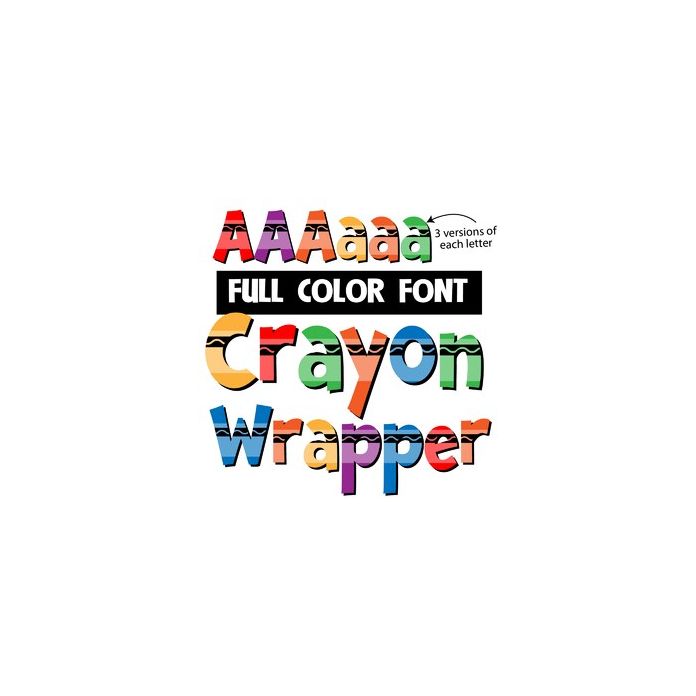
This full-color font features rainbow colored lettering with a crayon wrapper on top. There are two alt cases in both upper and lowercase with additional colors that you can access through Silhouette's glyph map.